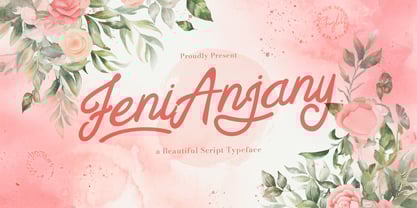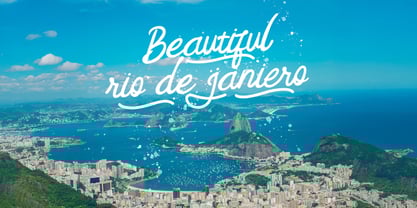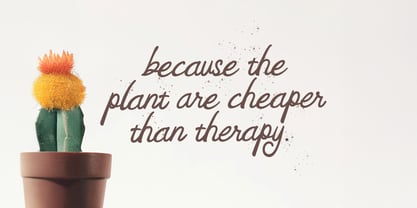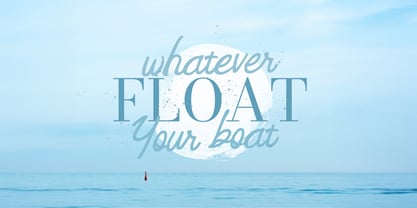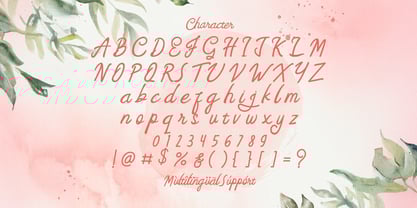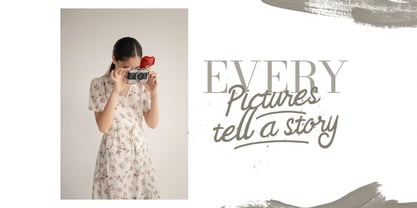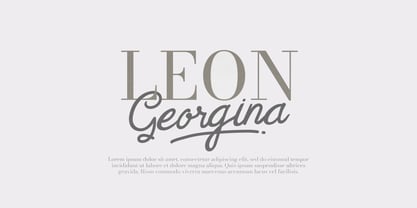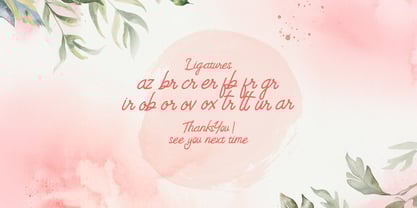
The Feny Anjany Font Family was designed by Virgiawan Listanto and published by Stringlabs Creative Studio. Feny Anjany contains 1 styles. More about this family
Feny Anjany is a beautiful handwritten font with a soft, flowing style and a personal touch. Designed to feel natural and elegant, this font is perfect for adding a handwritten charm to any design whether it's casual, feminine, or creative. From logos and invitations to quotes and social media, Feny Anjany brings a lovely, modern handwritten vibe that’s effortlessly chic.